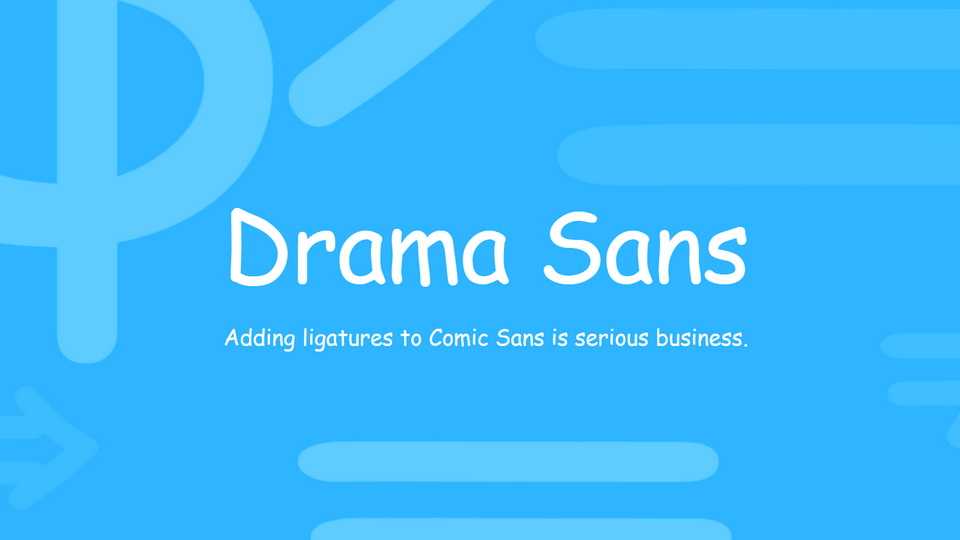
Download Drama Sans typeface, a casual handwritten typeface built upon Comic Sans with additional ligatures. Without hard edges, friendly look and warm feel Drama Sans will soothe your soul.